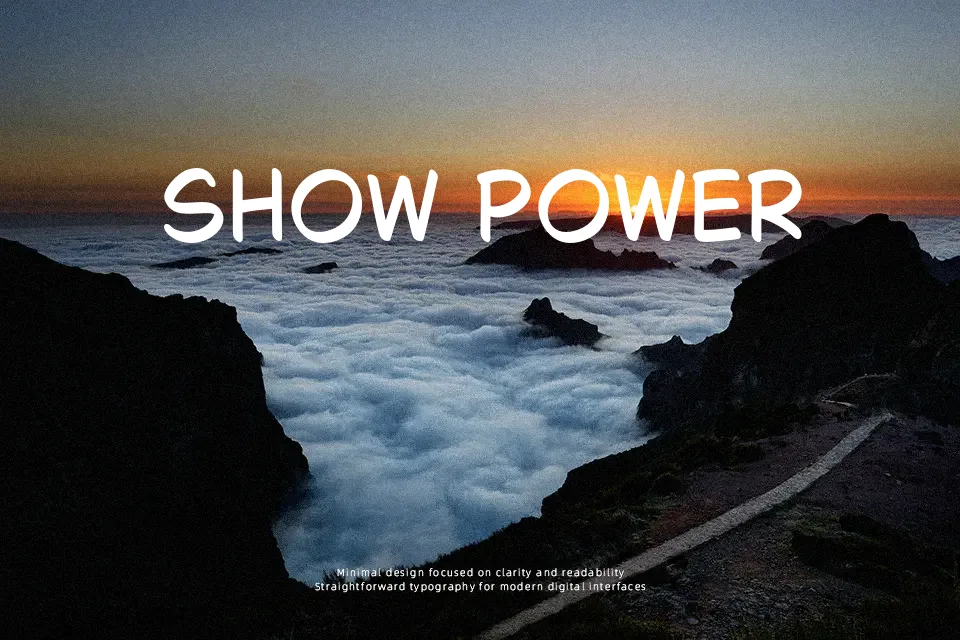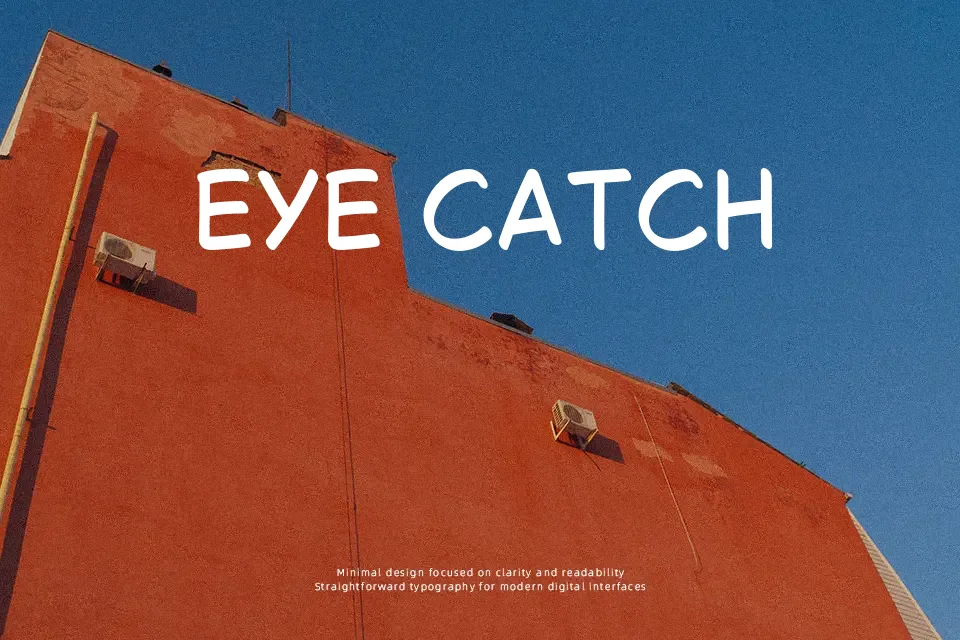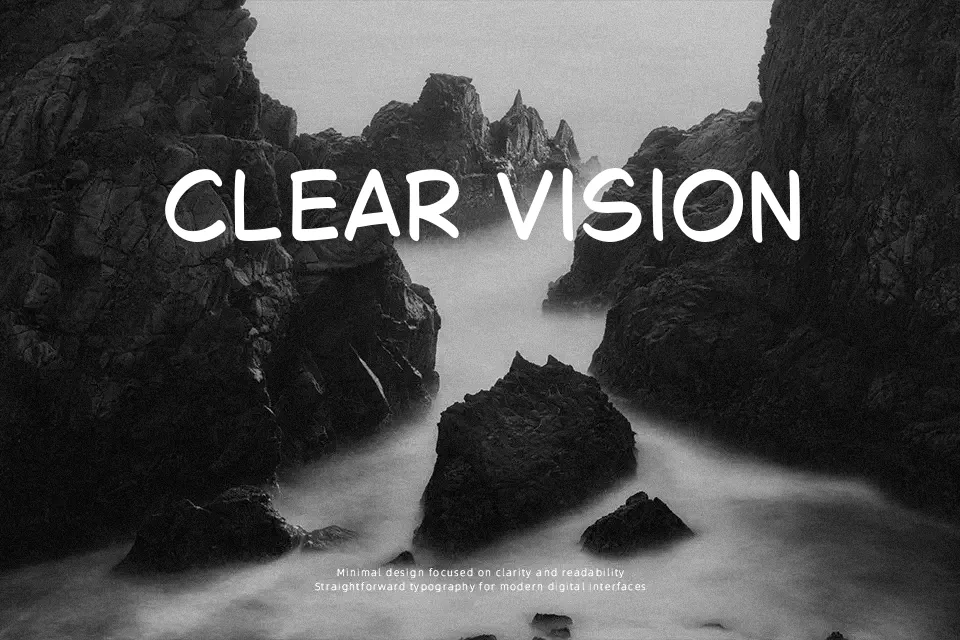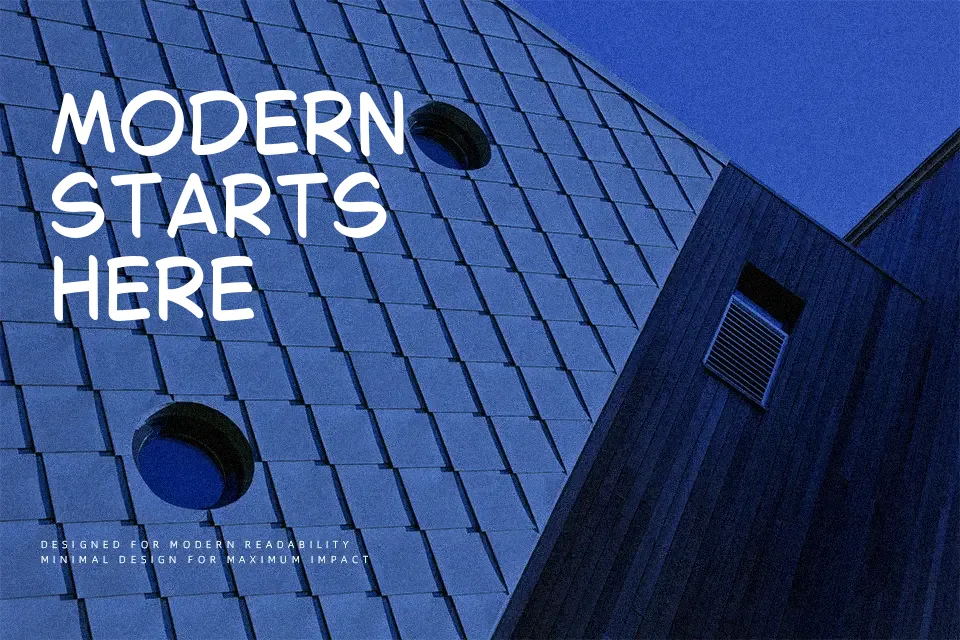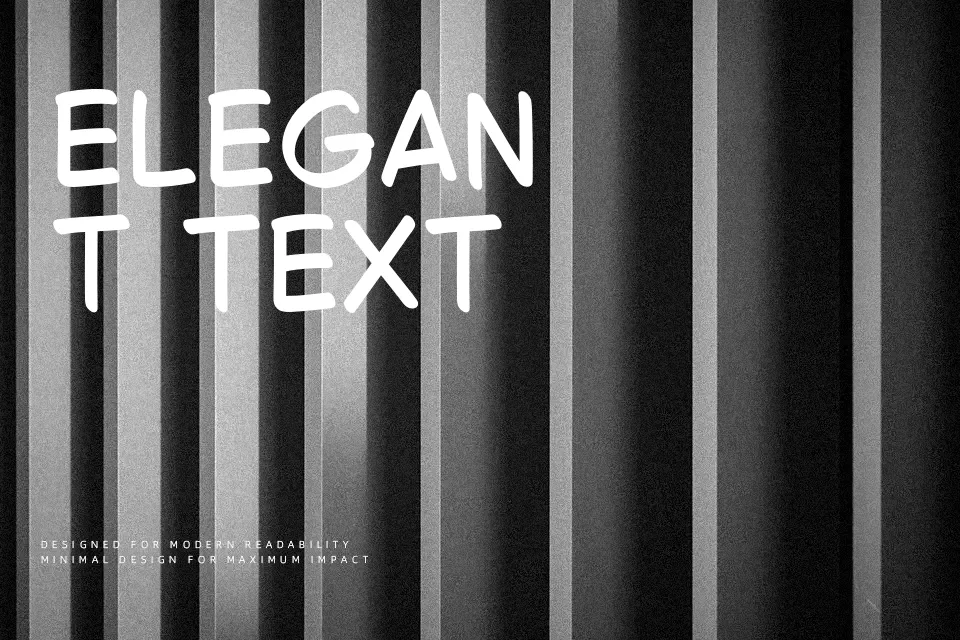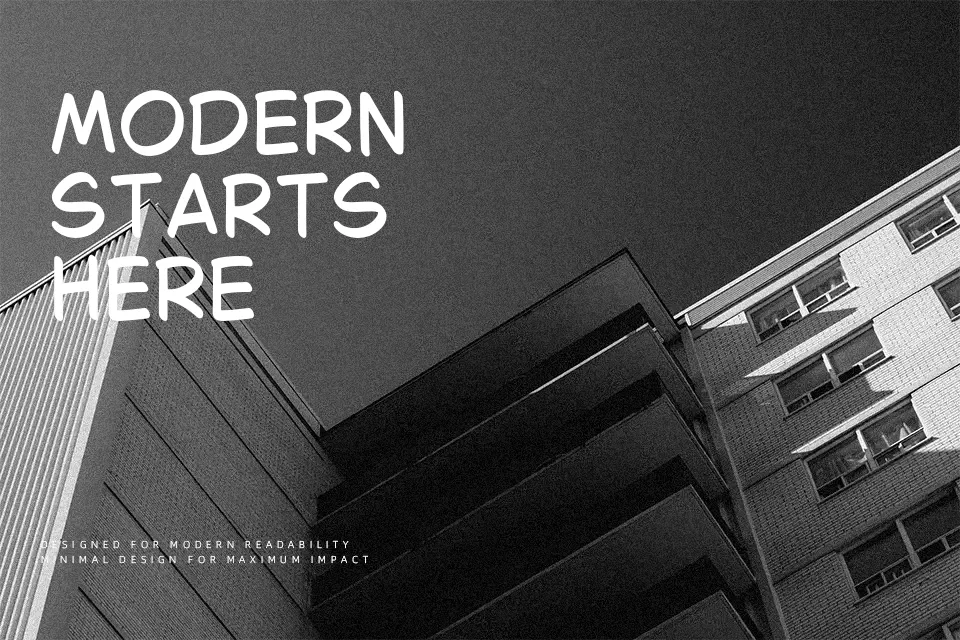
Bubble Sans Font
Bubble Sans is a comic display sans with soft, rounded outlines, fairly even weight, and open counters that echo hand-lettered speech bubbles from classic comic books. Letters sit comfortably close without feeling cramped, so text blocks stay compact while still staying legible at smaller headline sizes. The overall impression is casual and approachable rather than slick or corporate, which makes it a strong option for kids’ materials, gaming overlays, lighthearted branding, and caption-style callouts in posters or streaming graphics. It can feel too playful for serious editorial work or long body text, and the bubbly rhythm can be visually loud if overused, so it shines most when you treat it as a display voice alongside a simpler supporting typeface.
comic-style speech bubbles and captions
kids and family-focused posters or event graphics
playful branding or logos for casual products and games
social media visuals that need a friendly, handwritten comic tone
formal corporate branding or serious editorial layouts
dense body text, UI copy, or long reading experiences
projects that require a strict minimalist or highly technical feel
Perfect for gaming, kids, and logo, with a bold and comic style.